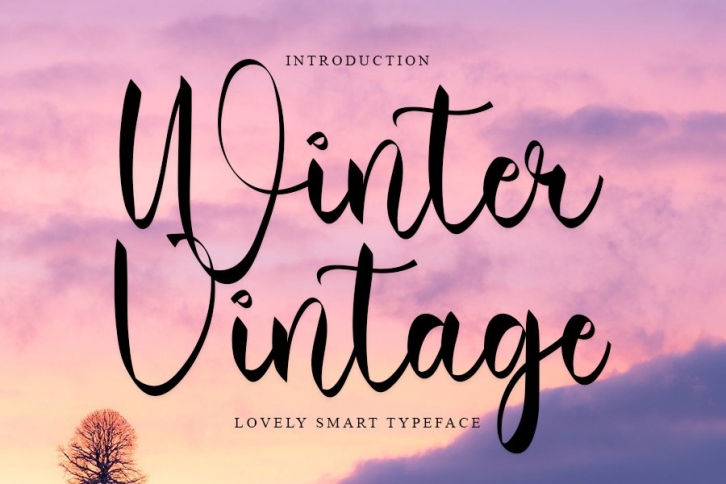
Winter Vintage is a trendy and unique font with an authentic style. It was designed by FreshType INK and it's a great choice for creative people who need such a font. It was released on September 2, 2021 and the file size is 6.65 MB. Winter Vintage will add an organic vibe to any design idea!